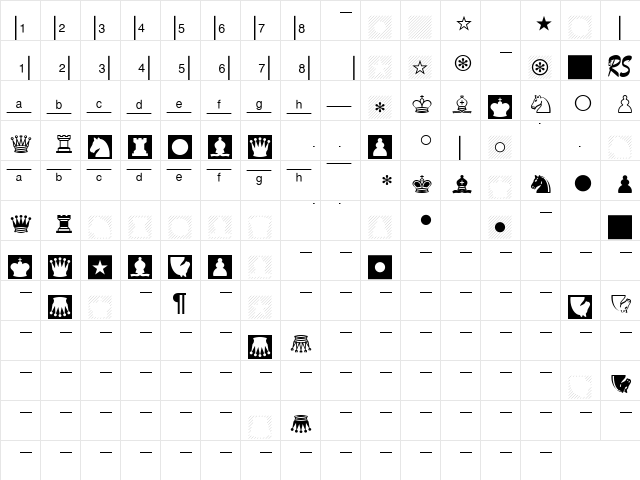
DiagramTTHabsburg Regular
Design Context for DiagramTTHabsburg Typeface
DiagramTTHabsburg takes a measured approach to typography — its balanced proportions and neutral character make it a reliable workhorse for both digital and print work.